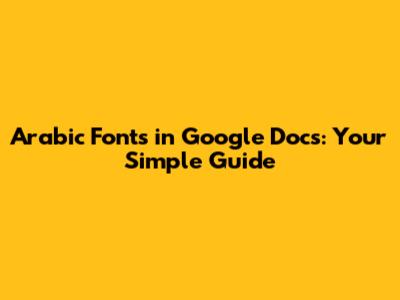
- Enhanced Readability: Specialized fonts ensure Arabic characters are displayed correctly, enhancing readability. This is particularly crucial for extended texts where clear and easy-to-read text is essential. Correct rendering of letter connections and overall text flow is fundamental for an easy reading experience.
- Professional Appearance: Using appropriate fonts gives your documents a professional and polished appearance. This is vital whether you're working on academic papers, business reports, or any document needing a high-quality look. A well-chosen font adds a touch of sophistication and credibility to your work.
- Cultural Sensitivity: Selecting authentic Arabic fonts demonstrates respect and understanding of the language's aesthetics. It also allows your content to be visually representative of its cultural context. This is particularly important when communicating with Arabic-speaking audiences.
- Better Compatibility: Certain fonts are specifically designed for Arabic, ensuring compatibility across different devices and platforms. This minimizes display issues and maintains the integrity of your document. Using fonts optimized for Arabic guarantees your text will look consistent regardless of where it's viewed.
- Creative Expression: Arabic fonts provide a wide range of styles, enabling you to add personality and creativity to your documents. Whether you prefer a traditional or modern look, the right font can significantly enhance your document's visual appeal. The variety available allows you to align your font choice with your specific aesthetic preferences and the overall tone of your work.
- Arial: A widely used sans-serif font known for its clarity and versatility. Arial is a safe choice, offering good readability and broad compatibility across devices.
- Calibri: A modern sans-serif font that is the default for Microsoft Office. It provides good readability and a clean appearance.
- Times New Roman: A classic serif font frequently used in academic and professional settings. It provides a formal look and is ideal for extensive text.
- Format the Text: Adjust text alignment, margins, and other formatting options as needed to enhance the readability and visual appeal of your document. Use the formatting options in Google Docs to align text to the right, adjust spacing, and make other modifications to improve the overall appearance.
- Review and Refine: Always review your work to ensure that the font renders correctly, the text flows naturally, and the layout is well-organized. Make any necessary adjustments to ensure your document looks professional and easy to read. Proofread for any typos or formatting errors.
- Incorrect Character Display: If Arabic characters appear as boxes or symbols, it usually means that the selected font does not fully support Arabic. To fix this, ensure you are using an Arabic-specific font and verify that the language settings in your document are set to Arabic.
- Text Flow Issues: If the text does not flow from right to left as it should, double-check that you have set the text direction correctly. Go to “Format,” then “Text direction,” and choose “Right-to-left.” Also, ensure that there are no conflicting formatting elements that disrupt the flow.
- Alignment Problems: If your text alignment seems off, verify that your document is aligned to the right. Adjust margins and text alignment options to suit the right-to-left format and enhance readability.